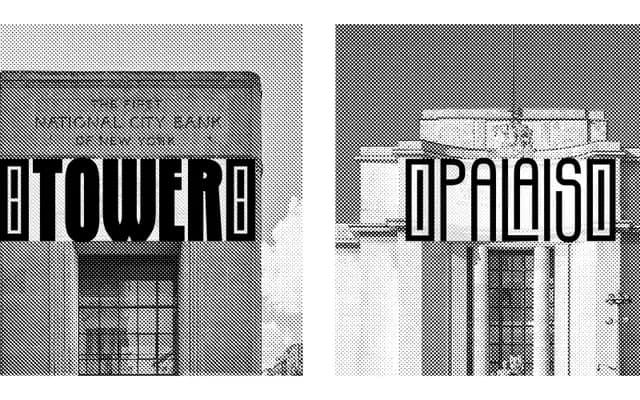
Beival Sans
A tall monospaced display typeface by Guillaume Beinat Prunet, drawing on Art Deco poster and architectural lettering from 1920s Paris and New York.
Designed at ECV Bordeaux and released in two weights, the family channels geometric movements including Bauhaus, De Stijl and the Viennese Secession through its narrow, simplified forms and condensed bold. Beyond standard characters, it offers a system of decorative signs and overlapping glyphs intended to build structured ornamental compositions for headlines and editorial layouts. The 610-glyph count per style reflects broad Latin language coverage across European and African scripts.
A tall, monospaced display face drawing on Art Deco geometric traditions from the 1920s and 1930s; its architectural proportions, ornamental glyph system and condensed verticality place it firmly in the display category rather than functional sans-serif.